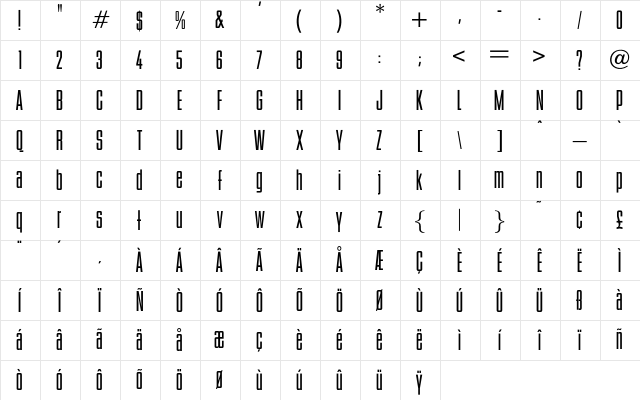
OPTIBinderStyle Light Free Font
OPTIBinderStyle Light
Design Context for OPTIBinderStyle
OPTIBinderStyle is a composed and adaptable typeface that performs quietly and consistently across a wide range of design contexts. Its slender proportions lend an understated elegance to any composition.